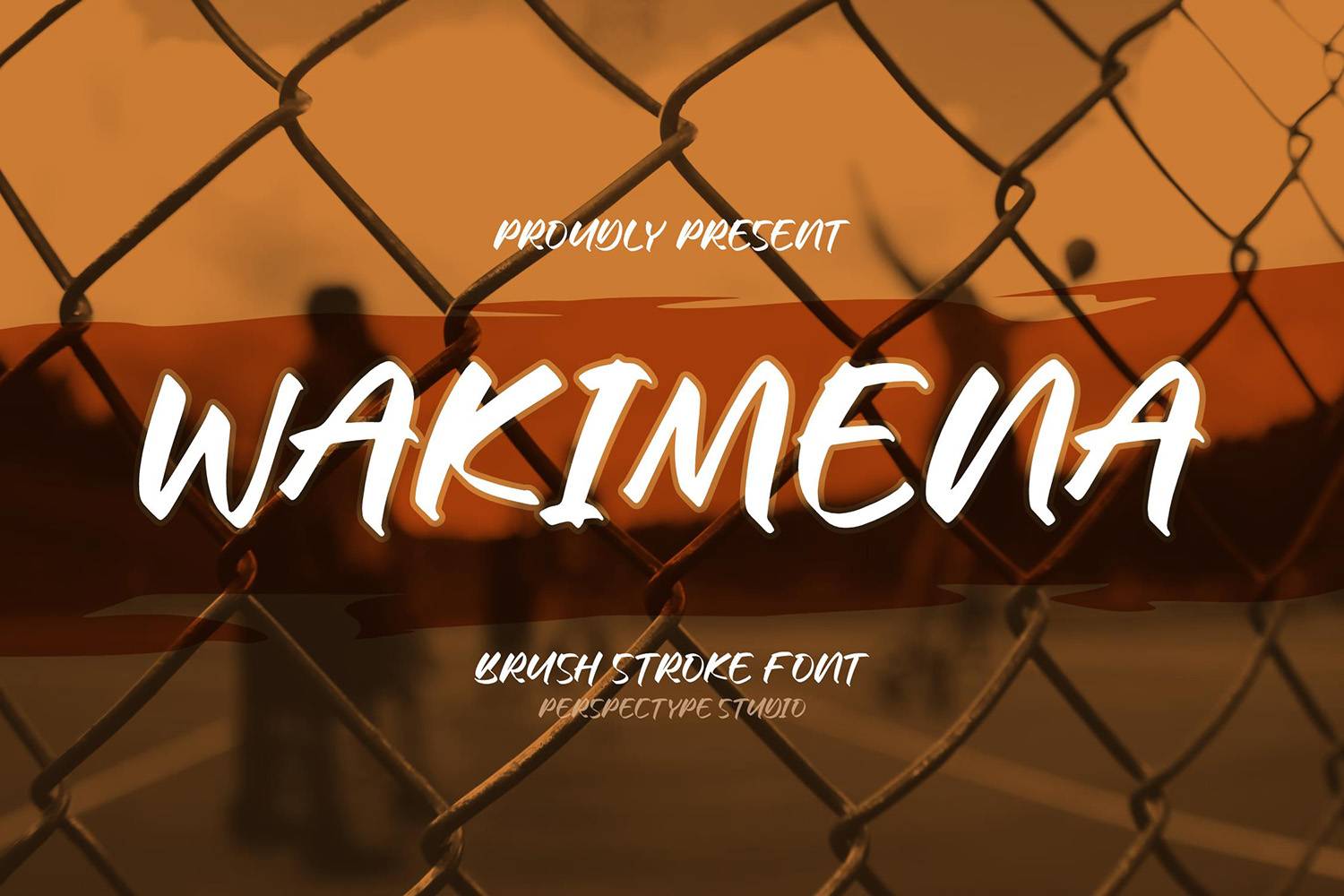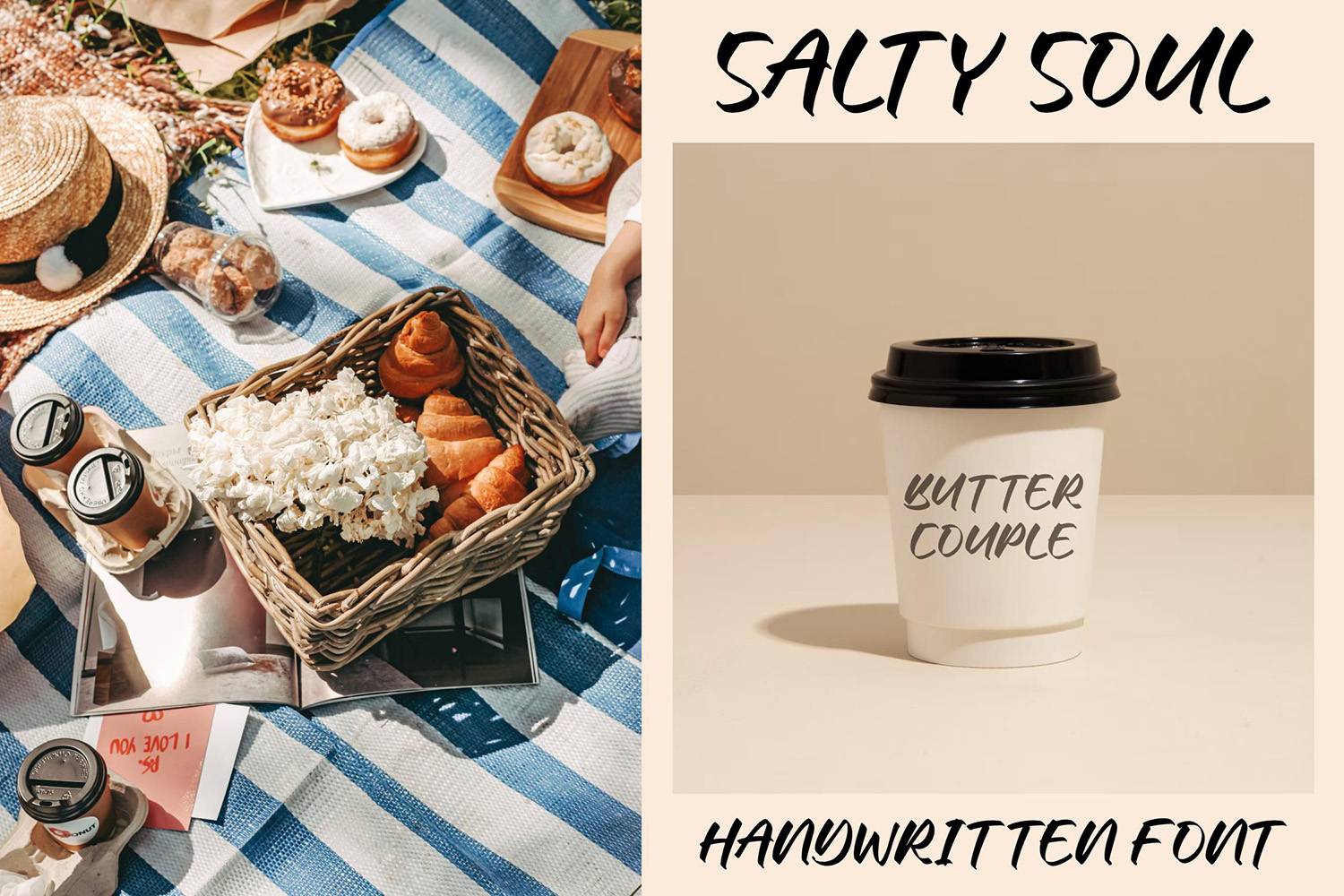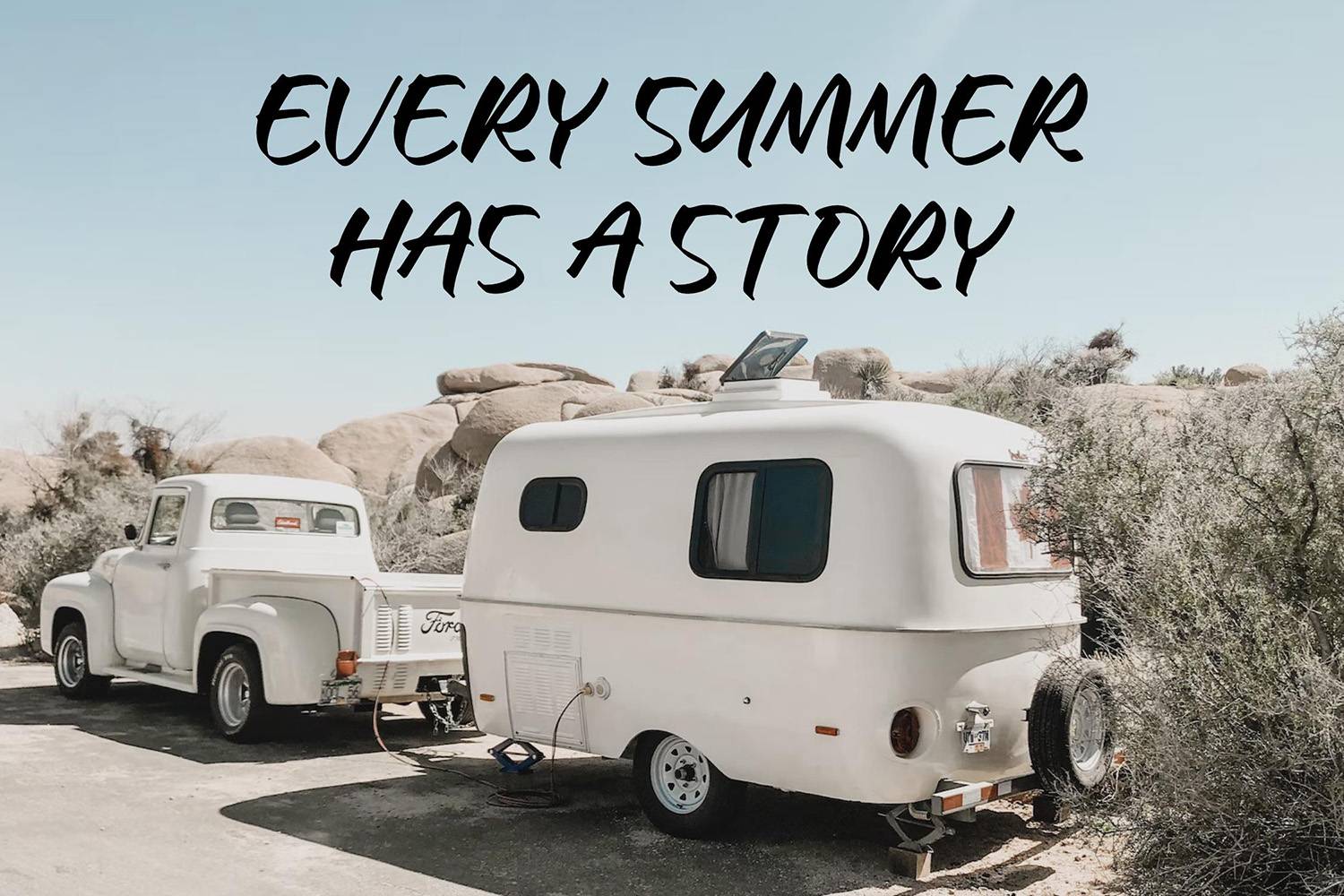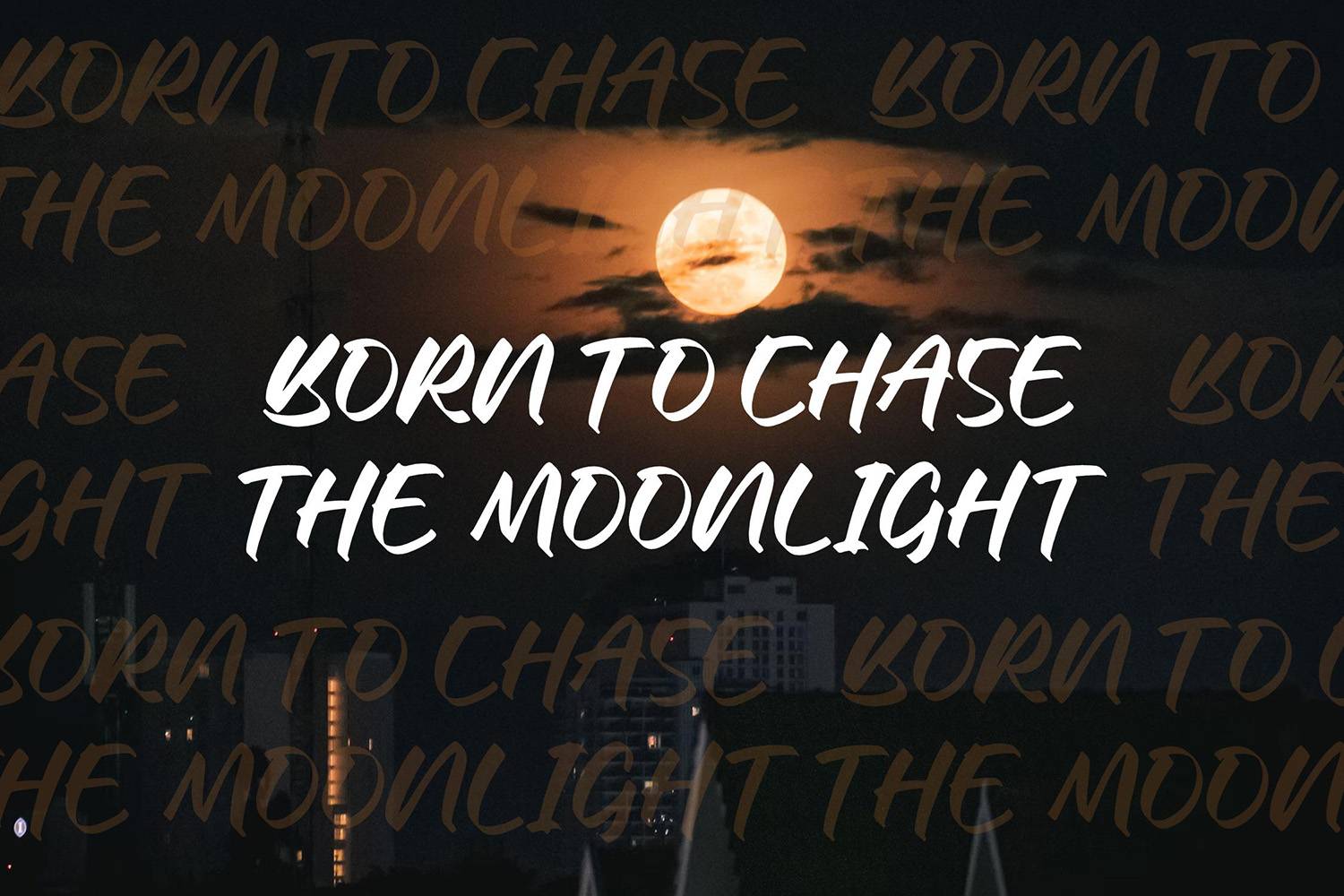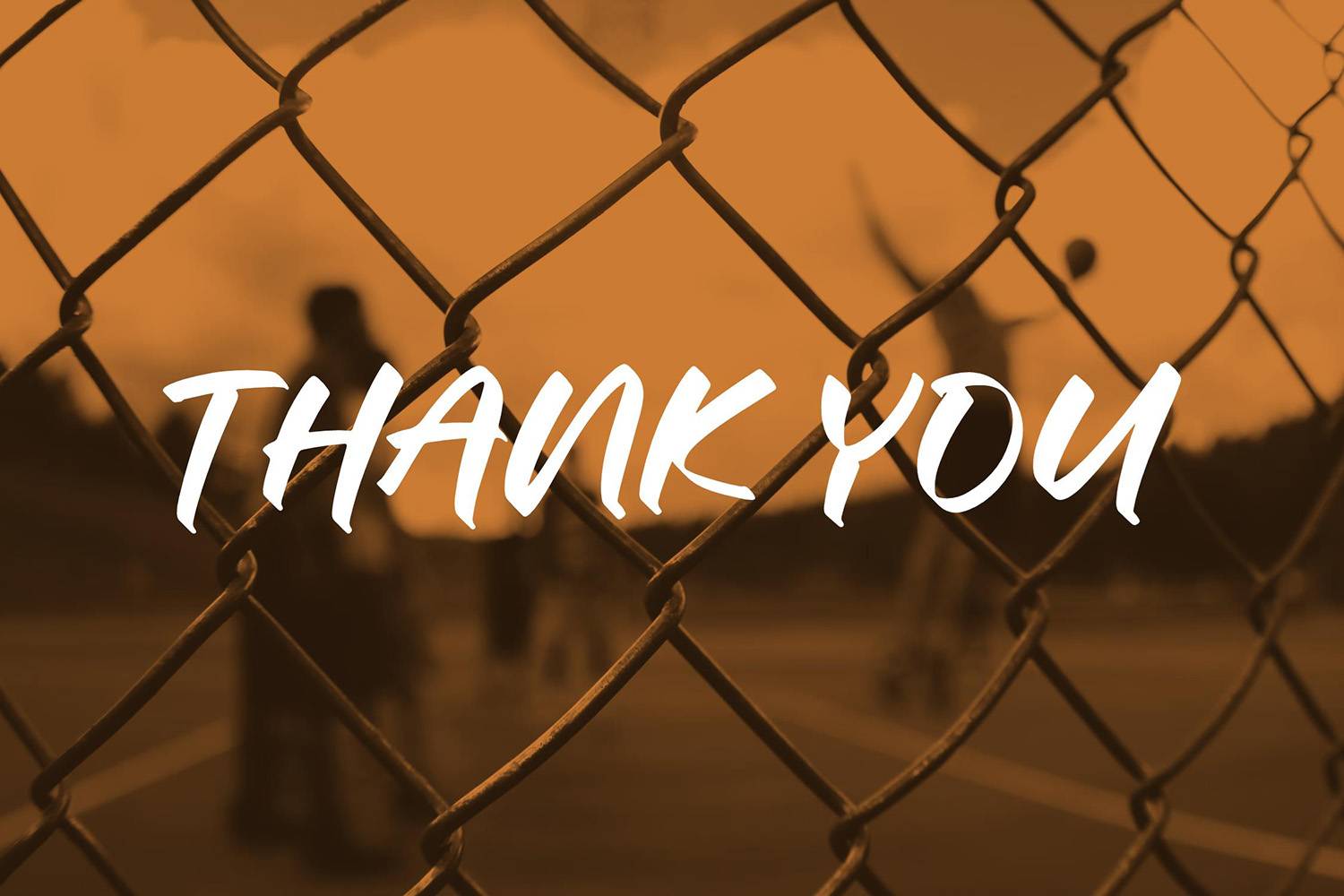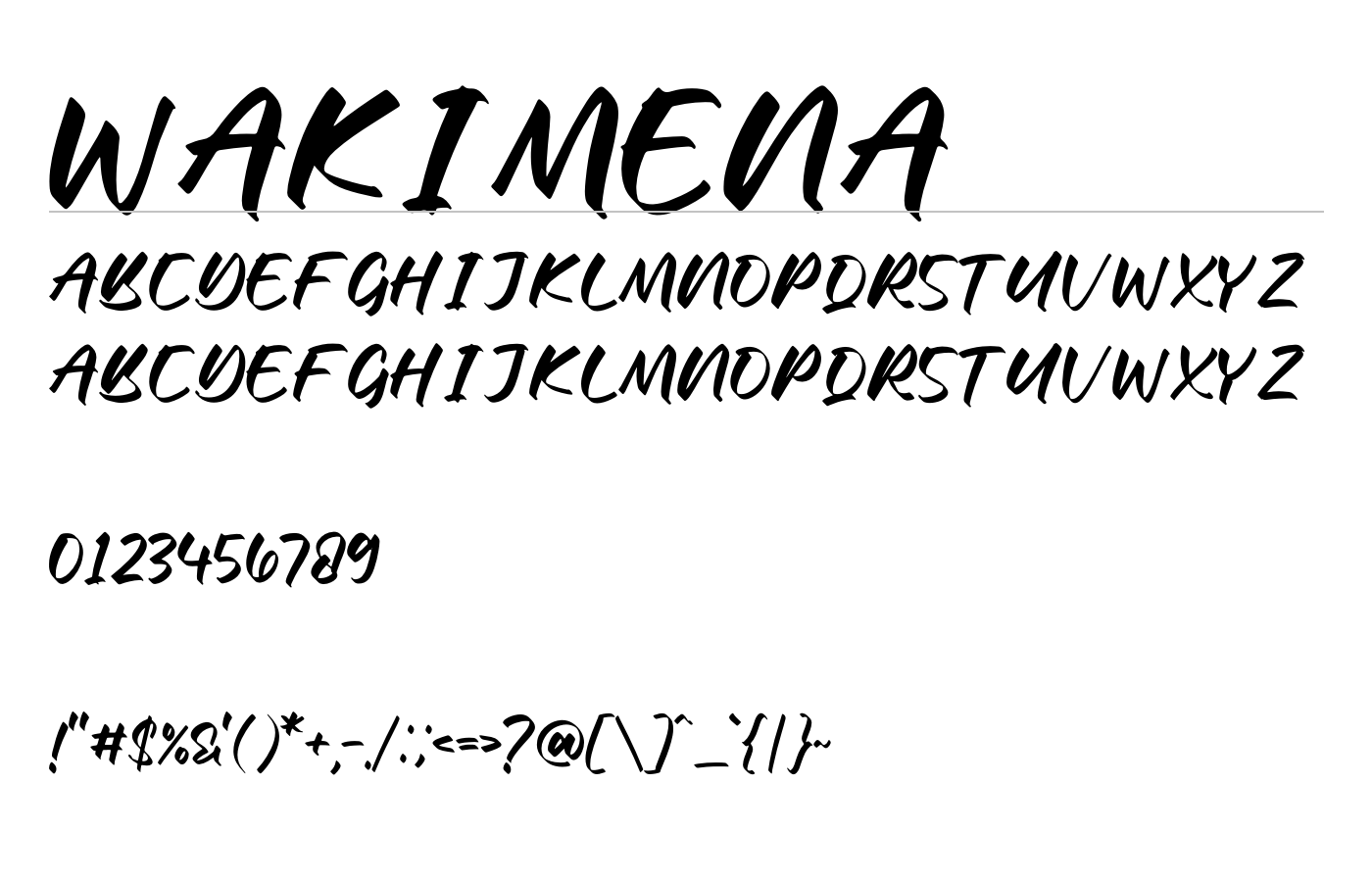
Wakimena is a lively, brush-style script font that exudes energy and creativity with its bold, flowing strokes and casual hand-painted feel. It features a high contrast between thick and thin lines, giving it a dynamic and expressive personality ideal for vibrant branding, artistic projects, and attention-grabbing headlines. This font works wonderfully in creative logos, posters, and packaging where a personal, handcrafted touch is desired.
Wakimena Font